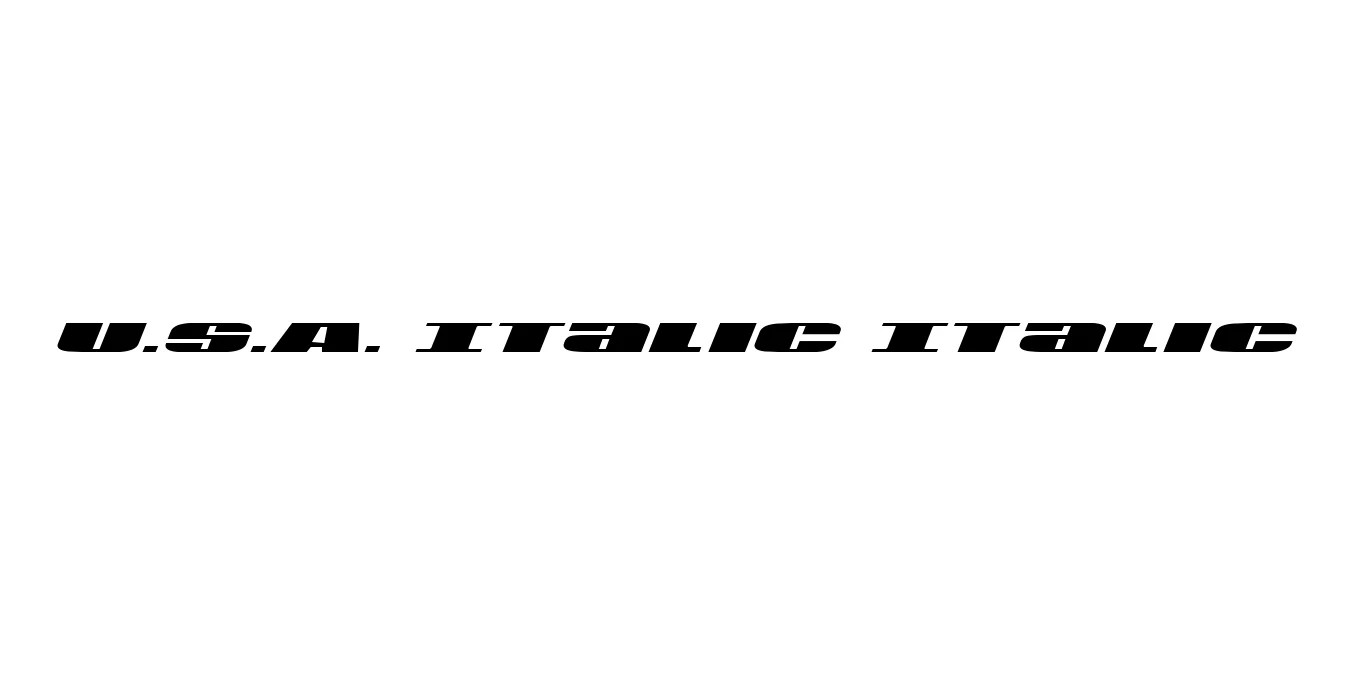
U.S.A. Italic Italic
Designed by FontBank
U.S.A. Italic is a bold, slanted display typeface that carries a strong sense of movement and authority. Part of the classic digital font libraries of the late 20th century, this font was designed to capture a patriotic and industrial aesthetic. Its thick, blocky characters are engineered for maximum readability in large formats, making it a staple for designers looking to convey strength and speed.
The typeface is particularly notable for its slanted architecture, which provides a dynamic visual energy often associated with sports branding and automotive design. Despite its vintage origins, U.S.A. Italic remains a popular choice for high-impact headlines and promotional materials that require a commanding presence. It serves as an excellent tool for creating a sense of urgency and bold communication.
U.S.A. Italic Italic Best Uses
Perfect for numbering and lettering on athletic apparel due to its thick, legible strokes.
Ideal for high-impact titles in posters and news flyers that need a strong voice.
Well-suited for vehicle graphics and racing decals requiring a look of forward momentum.
Excellent for large-scale outdoor advertising and event signage.